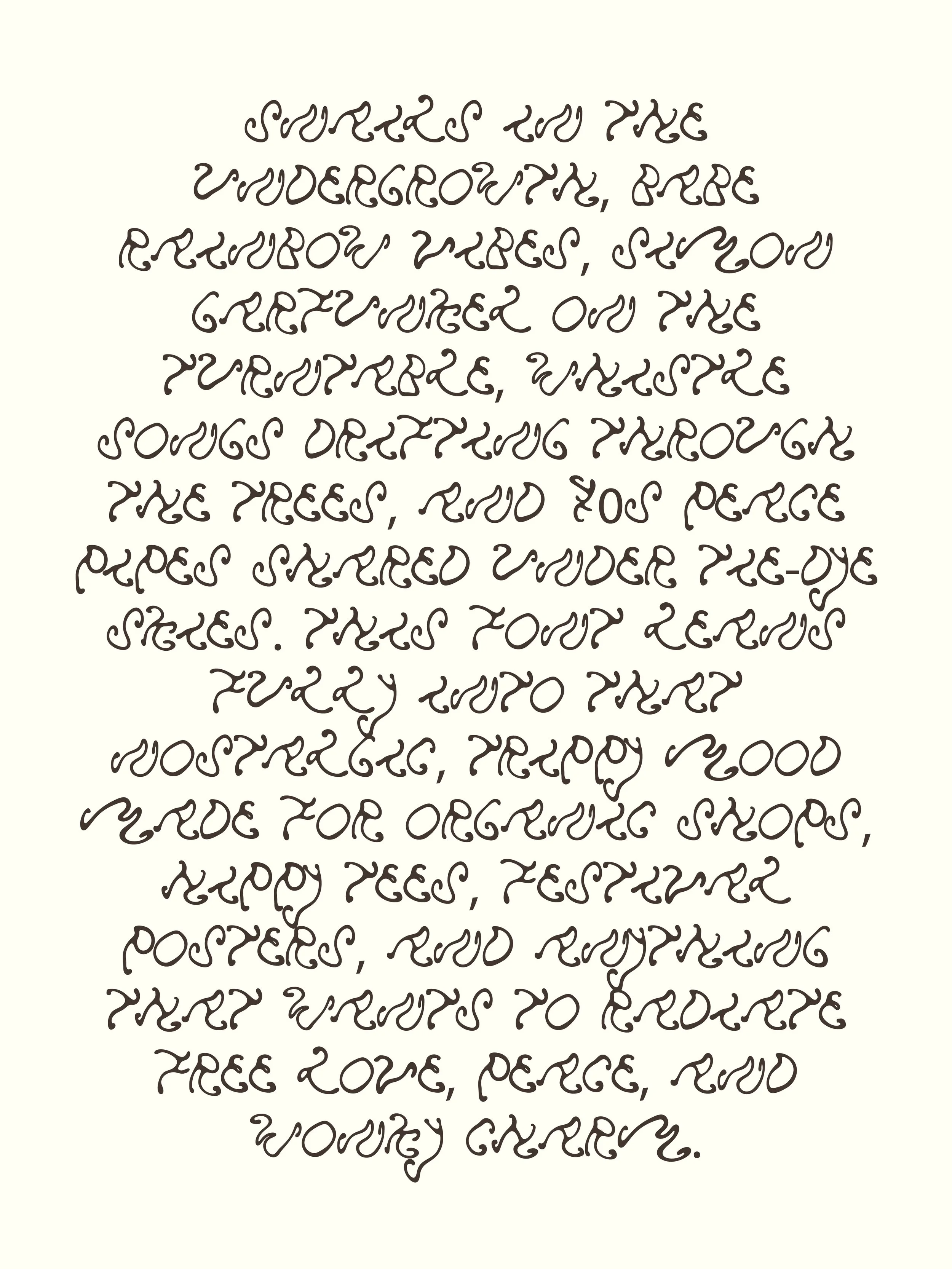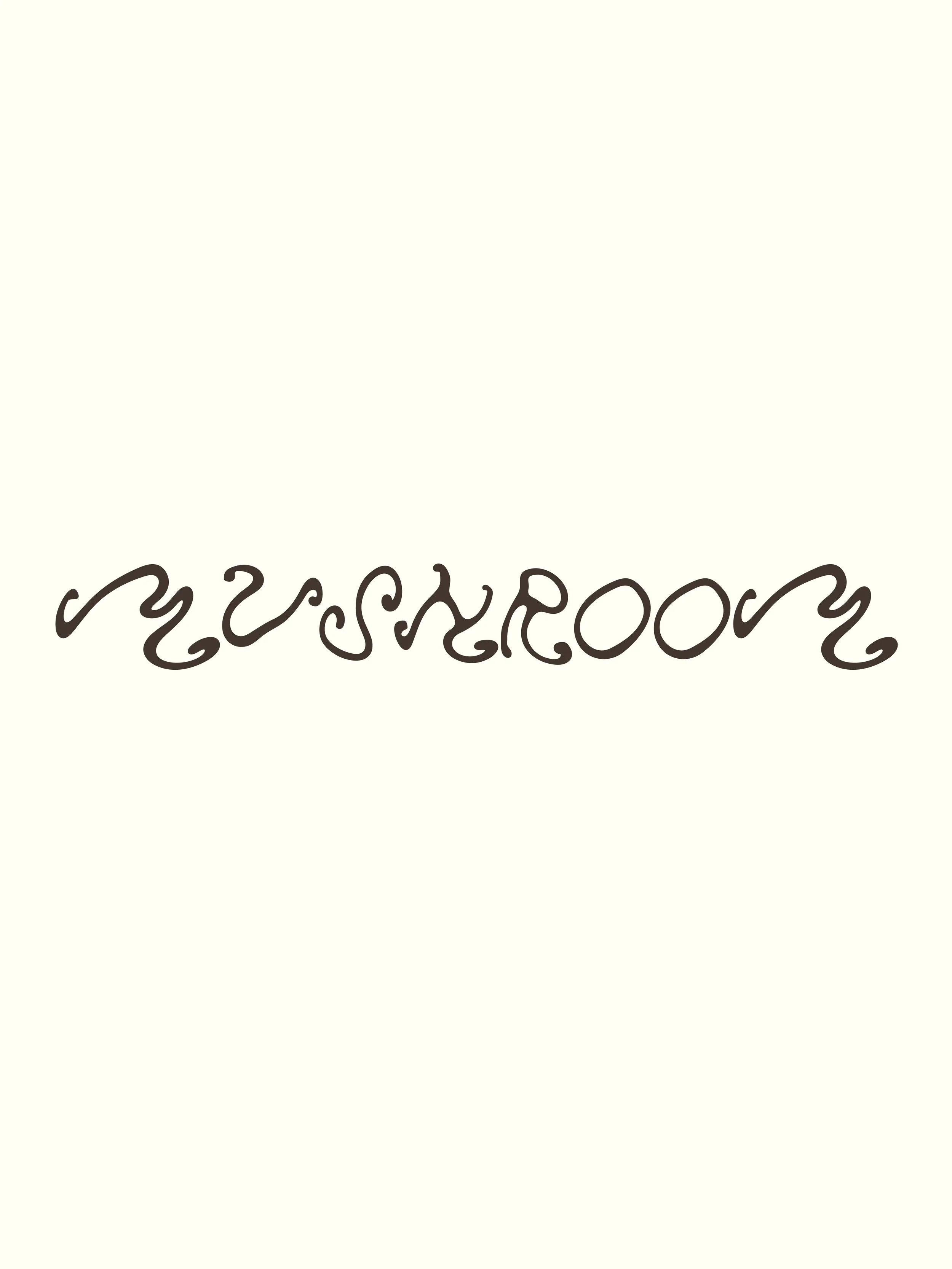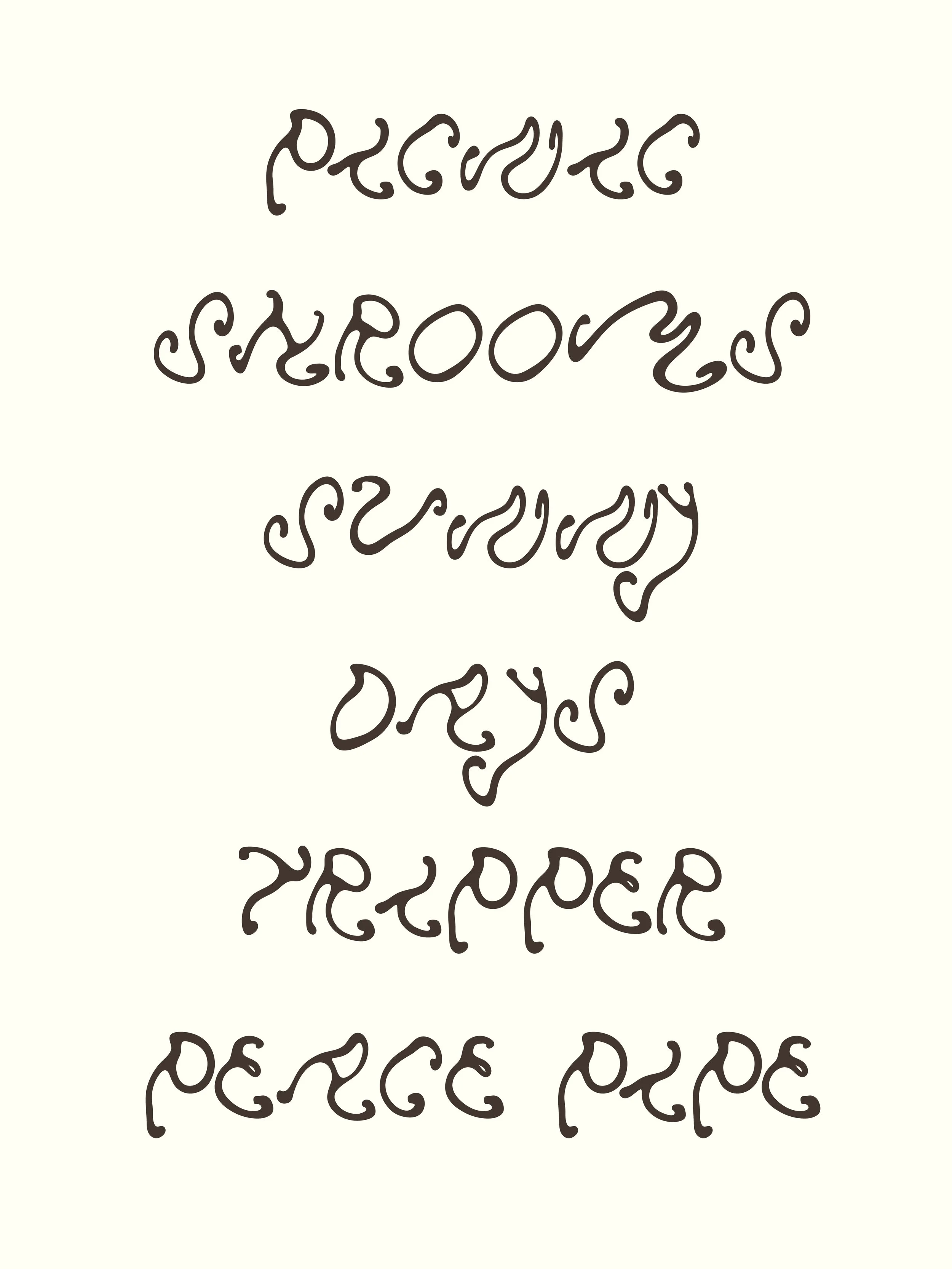
Mushroom | Hand Drawn Font
Mushroom is a hand-drawn psychedelic typeface that embraces imperfection. Its soft, wavy edges and uneven rhythm give it a flowing, dreamlike quality — like smoke curling in the air or ink bleeding gently into paper.
It evokes the spirit of nature and the nostalgia of sunlit, carefree days: snails meandering through moss, gentle melodies carried on the breeze, and afternoons filled with warmth, laughter, and slow, quiet magic. Mushroom Display is less about polish and more about feeling — a font that brings whimsy, freedom, and organic charm wherever it appears.
Letters A–Z (mostly lowercase with a handful of alternates/caps)
Numbers 0–9
No additional punctuation
Psychedelic-inspired posters and vintage album artwork
Bohemian packaging + organic product branding
Retro t-shirts + hippy apparel graphics
Festival flyers, zines, and DIY publications
Logos with a warm, imperfect, 60s–70s twist
Any project craving that raw, hand-crafted, free-spirited touch